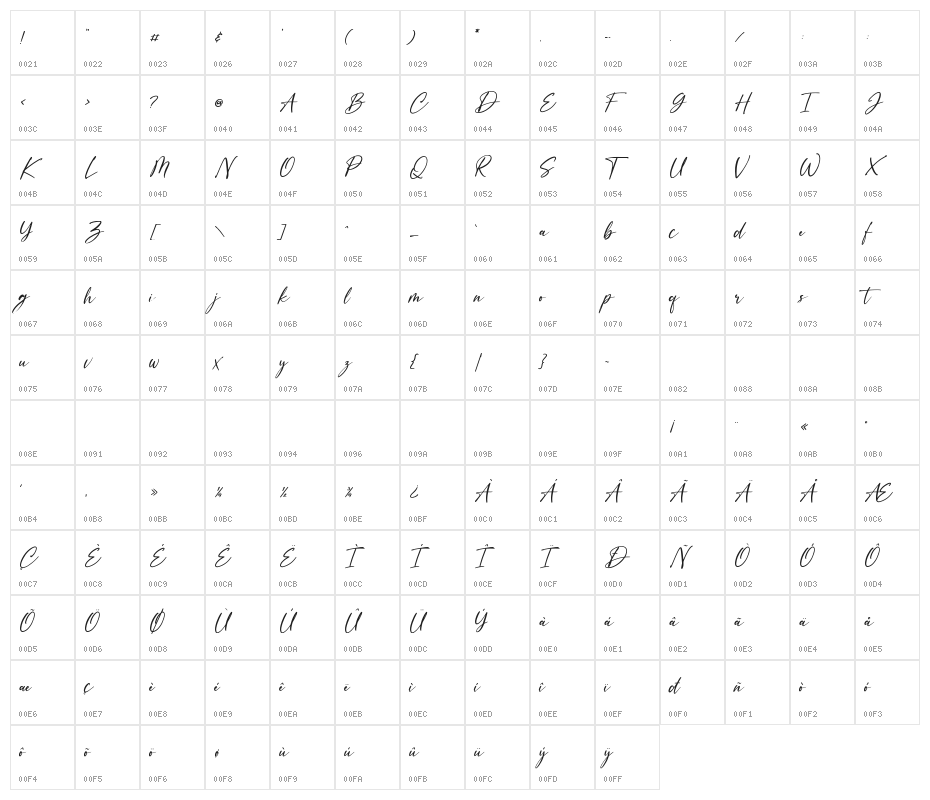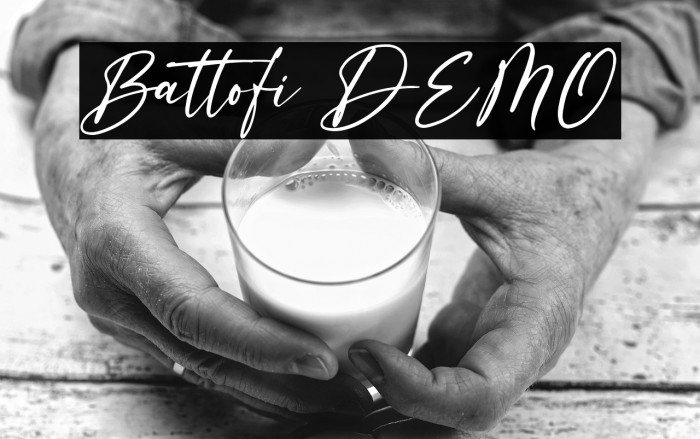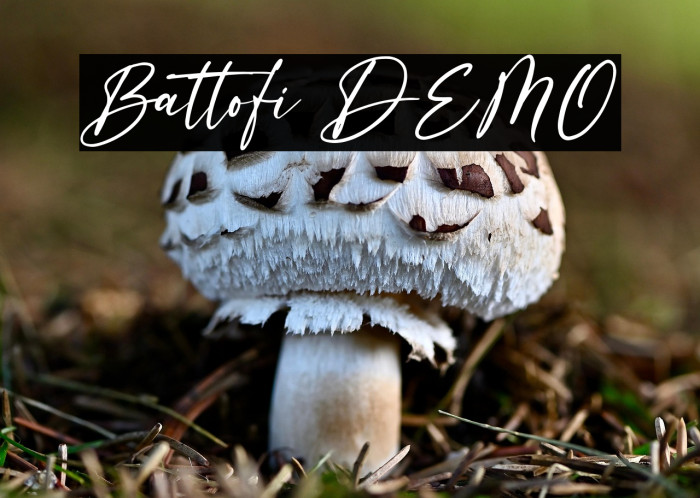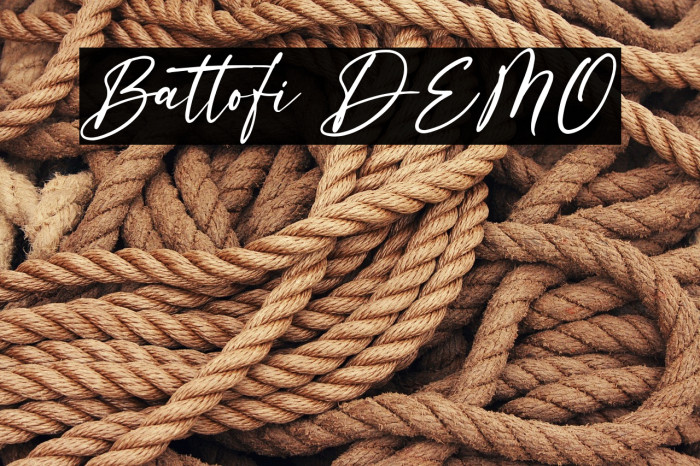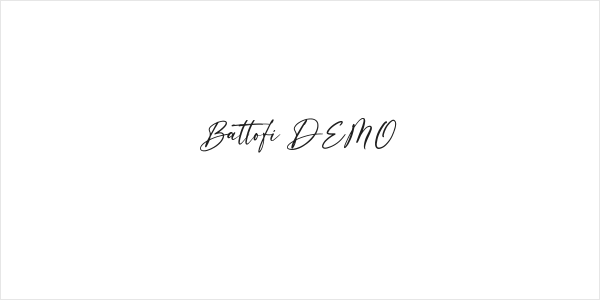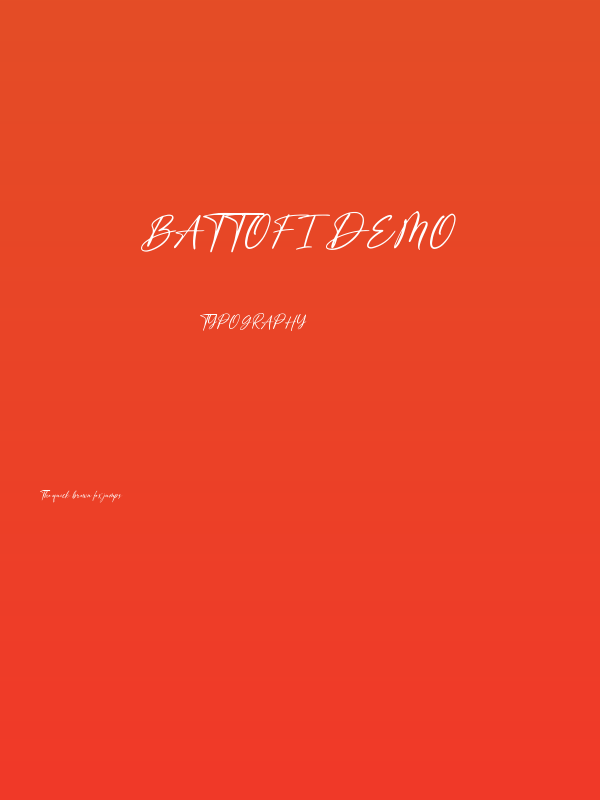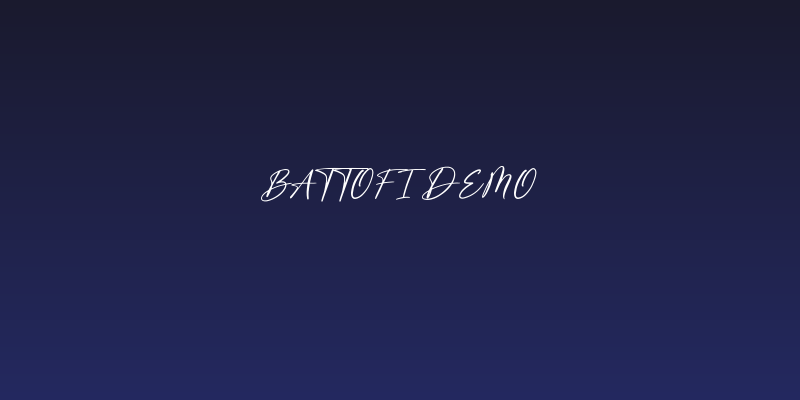
Battofi DEMO Font
Battofi DEMO Description
This font features an elegant and flowing script style, characterized by its fluid and connected letterforms. The uppercase letters are bold and expressive, with a slight slant that adds a dynamic feel. The lowercase letters maintain the same fluidity, offering a harmonious and cohesive appearance. The font includes a full set of numerals and a selection of special characters, all maintaining the same stylish and cursive design. The strokes are consistent in weight, providing a balanced and visually appealing look. This font is perfect for projects that require a touch of sophistication and elegance.